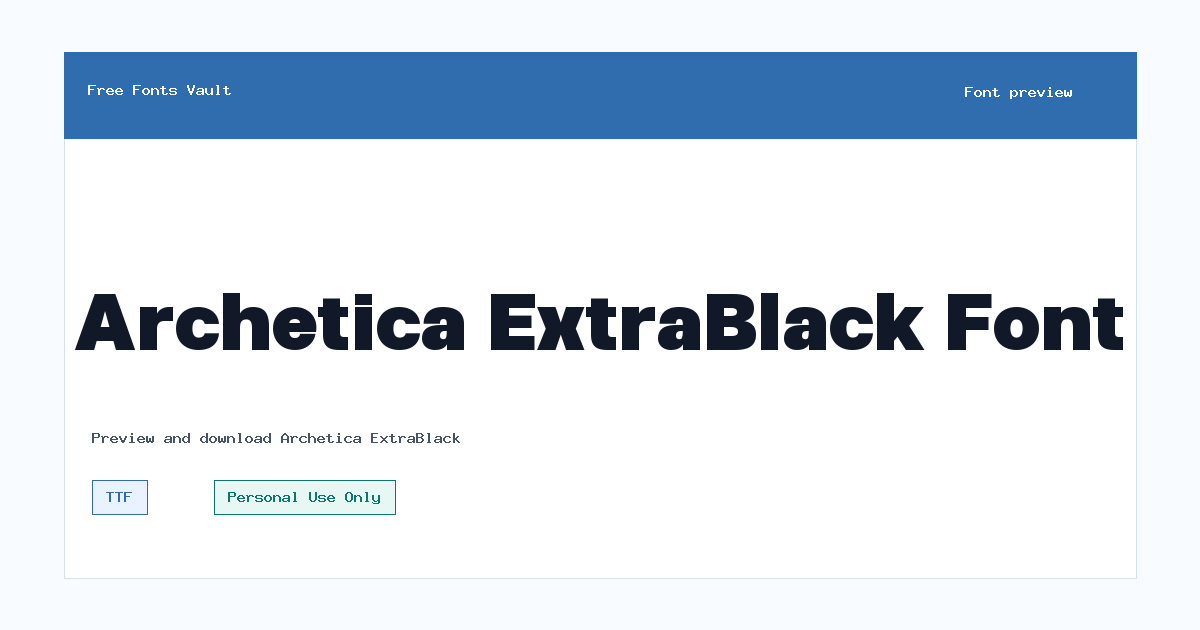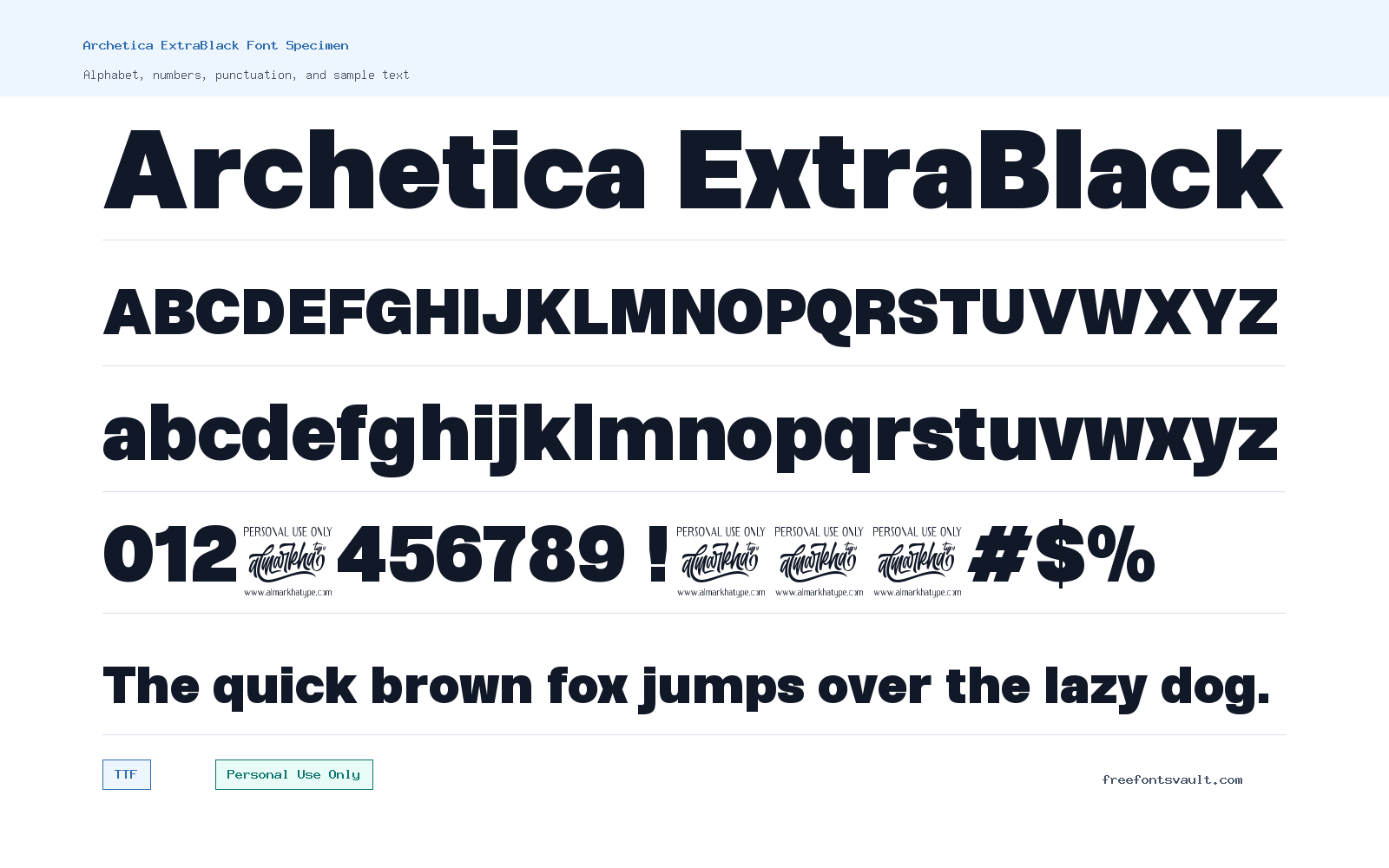
Archetica ExtraBlack
Archetica ExtraBlack font.
Archetica ExtraBlack is a very heavy sans serif font made for strong, high-impact display text. Its 900 weight gives words a dense, confident look, making it useful when a design needs short text to stand out immediately.
About Archetica ExtraBlack
Archetica ExtraBlack works best when it is treated as a display typeface rather than a long-reading font. The extra-black weight creates a solid block-like presence, so it is a good choice for headlines, poster titles, social media graphics, packaging mockups, and bold logo experiments. Because the letterforms carry so much weight, the font can give simple words a modern and assertive feel without needing many extra effects. It is especially useful for short phrases where size, contrast, and spacing can do most of the visual work.
When using Archetica ExtraBlack, test it with the exact words you plan to design around. Heavy sans serif fonts can look excellent in large sizes but may feel crowded if the text is too long or the tracking is too tight. For logo work, try uppercase and title case versions, then adjust spacing carefully so the shapes do not merge. For posters and web mockups, pair it with a lighter, quieter sans serif or a clean serif for body copy. Let Archetica ExtraBlack handle the main title or key phrase, then use the supporting font for descriptions, navigation, captions, and smaller text.
- Extra-black 900 weight for bold display typography
- Sans serif style suited to large titles, branding drafts, posters, and visual mockups
- Regular upright style for clean, direct headline setting
- Best used for short words, headings, logos, and other large-size text treatments
- Poster headlines and event graphics
- Logo concepts and wordmark experiments
- Bold social media titles
- Web hero headings and landing page mockups
- Packaging concepts, labels, and promotional layouts
- Display text where a strong sans serif voice is needed
Use Archetica ExtraBlack at large sizes where its heavy weight can stay clear and readable. It is not ideal for paragraphs, small captions, dense menus, or long blocks of text. In layout work, give it enough spacing and pair it with a lighter text font so the design does not feel too heavy. For web mockups, test the font in hero sections, banners, and callout headings rather than using it across the entire page.
What kind of font is Archetica ExtraBlack?
Archetica ExtraBlack is a heavy sans serif display font. Its 900 weight makes it better for large titles and short text than for long reading.
Is Archetica ExtraBlack good for body text?
It is not the best choice for body text. The extra-black weight is more effective for headlines, posters, banners, and short display phrases.
What fonts pair well with Archetica ExtraBlack?
Pair it with a lighter, simple sans serif for a clean modern layout, or use a readable serif for contrast. Keep the supporting font quieter so Archetica ExtraBlack remains the main visual focus.